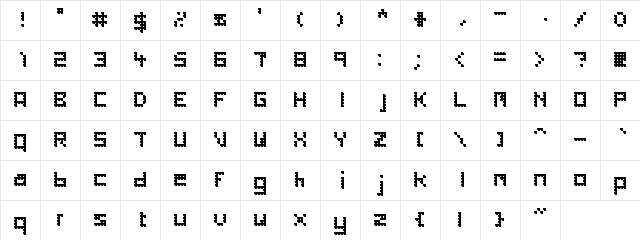
Vicky Regular
| Designer | Mr.HotRod |
Design Context for Vicky Typeface
Vicky takes a measured approach to typography — its balanced proportions and neutral character make it a reliable workhorse for both digital and print work.